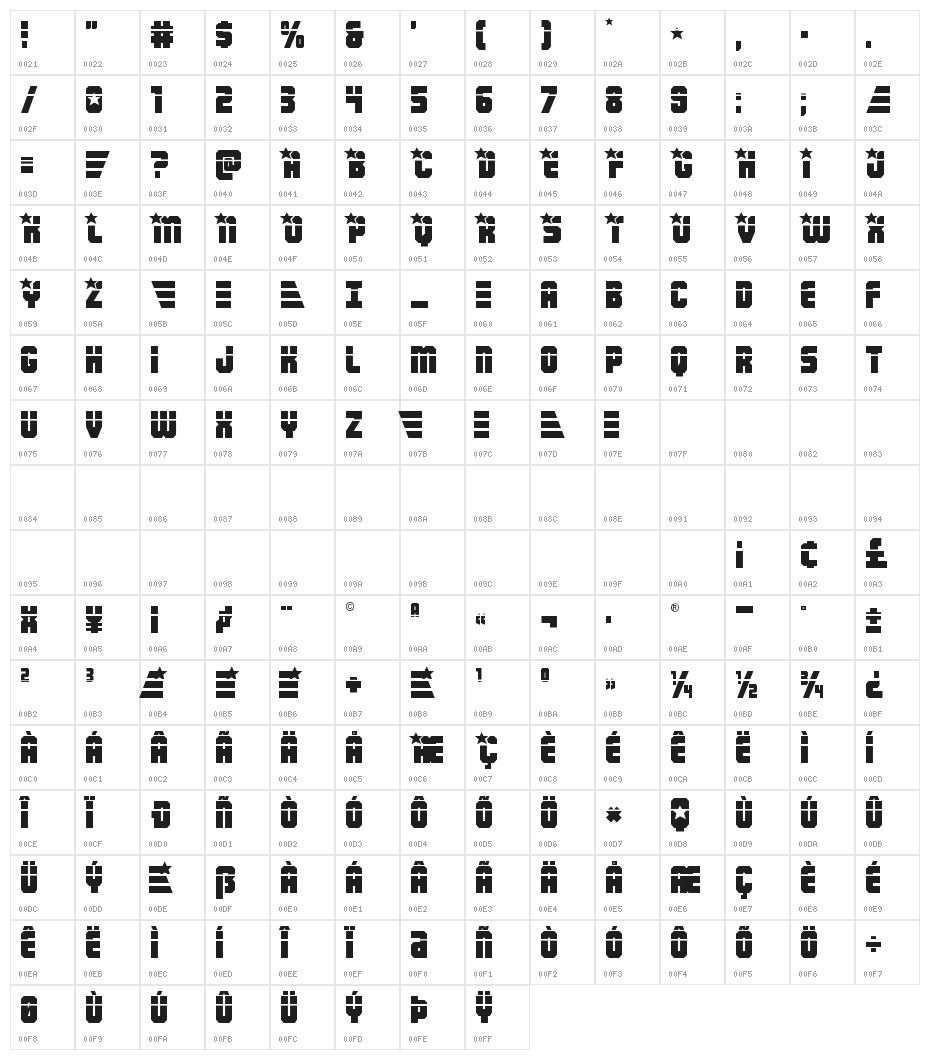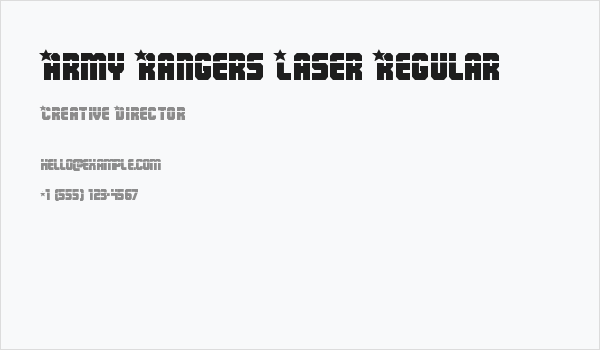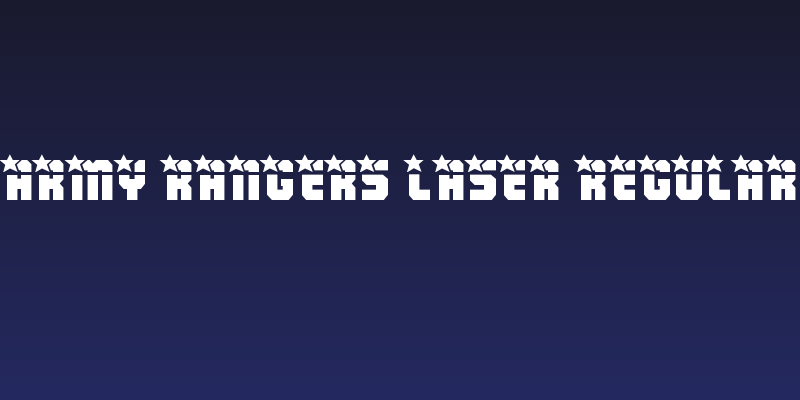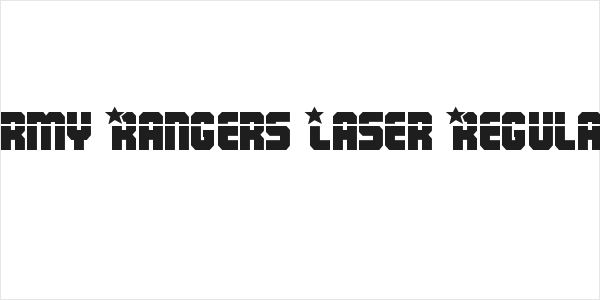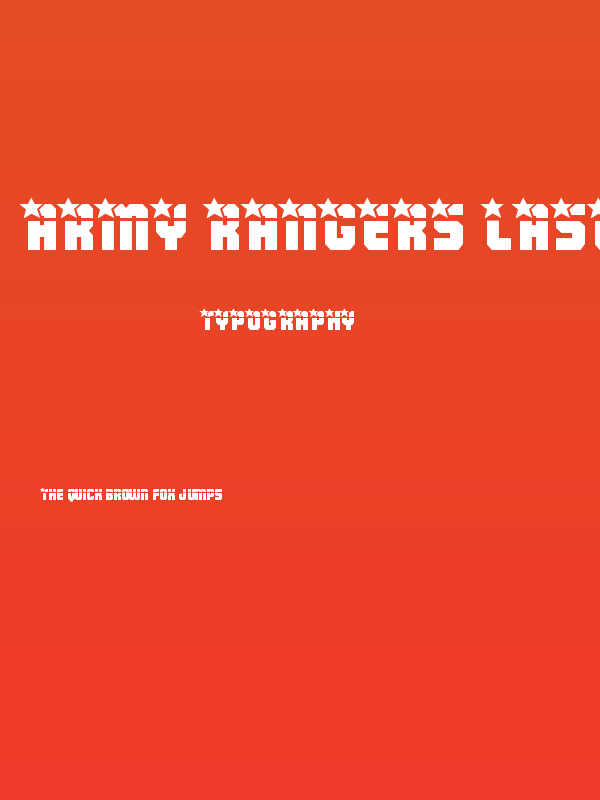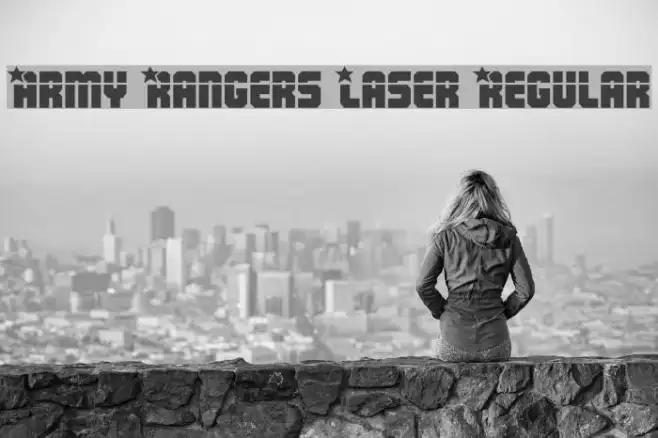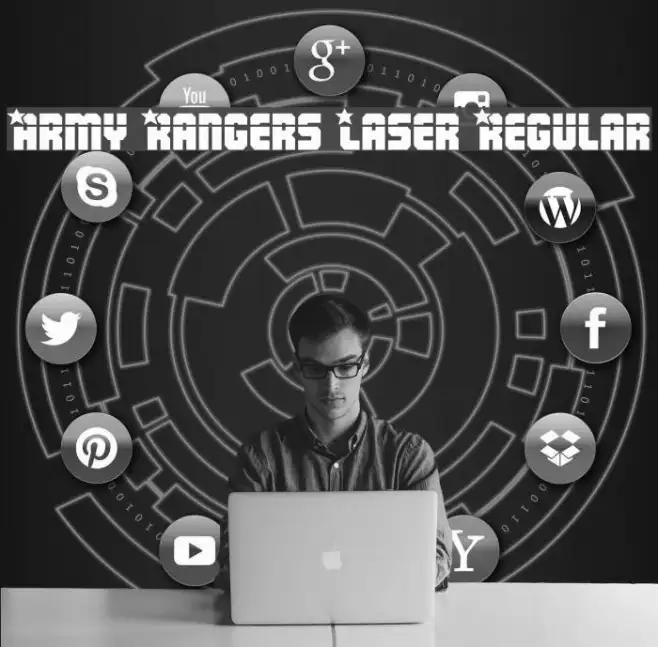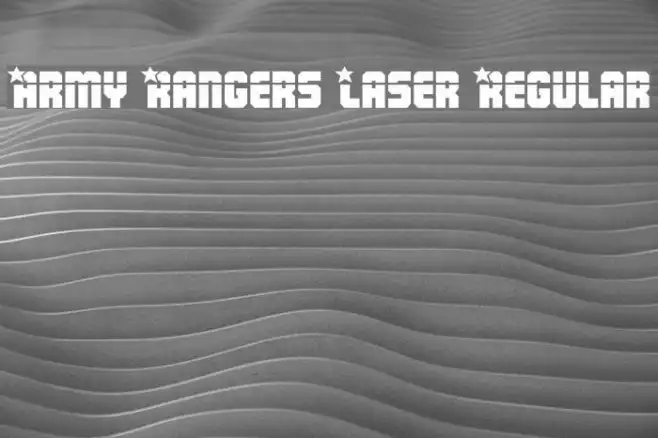
Army Rangers Laser Regular Font
Army Rangers Laser Regular Description
This font features a bold, geometric design with a military-inspired aesthetic. Each character is constructed with sharp, angular lines and blocky shapes, giving it a strong, commanding presence. The uppercase letters are adorned with stars, adding a decorative touch that enhances its rugged, tactical feel. The numbers and special characters maintain the same boldness and angularity, ensuring consistency across the typeface. This font is ideal for projects that require a strong, authoritative look, such as military-themed designs, posters, and branding materials. Its unique style makes it stand out, while its boldness ensures readability even at smaller sizes.